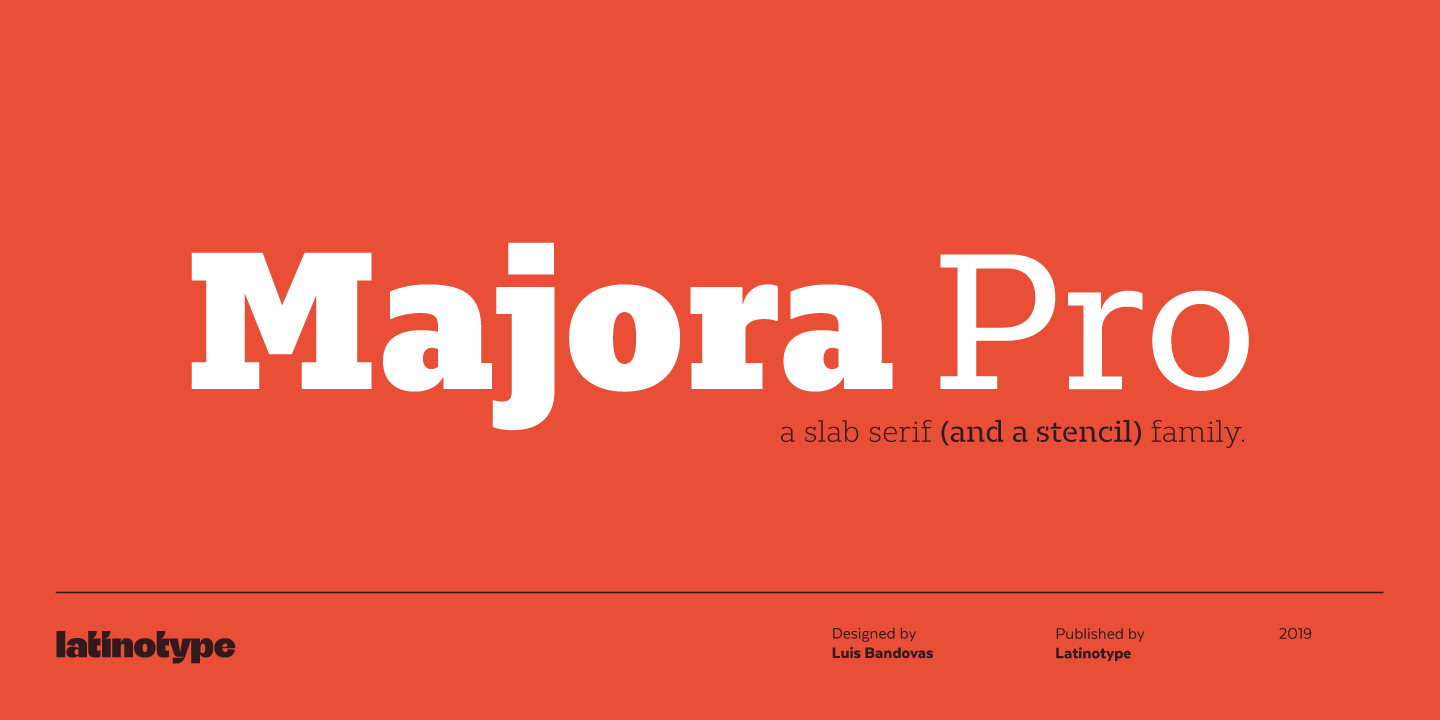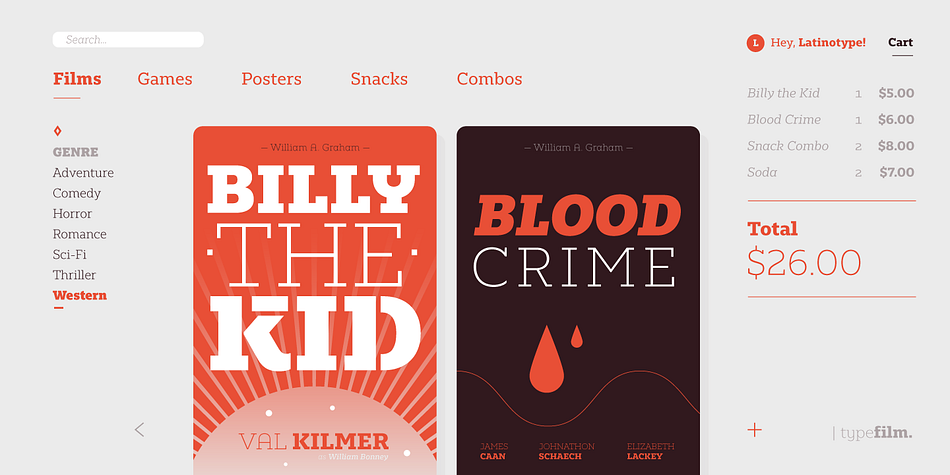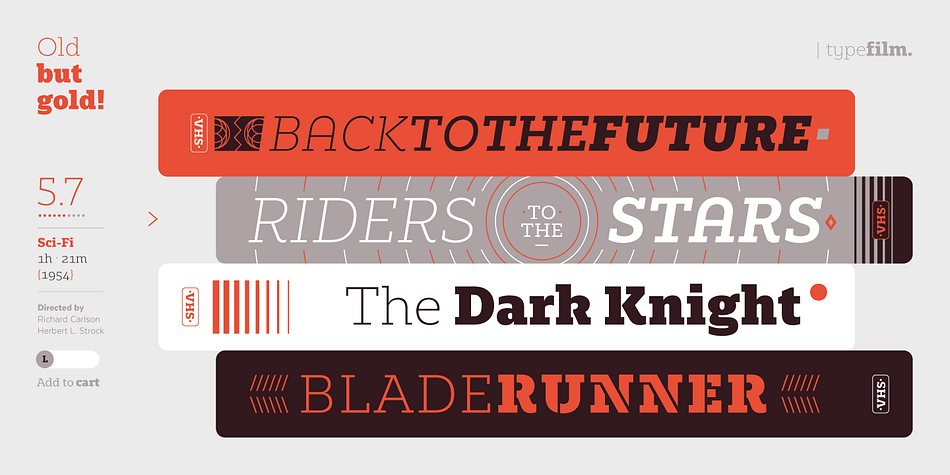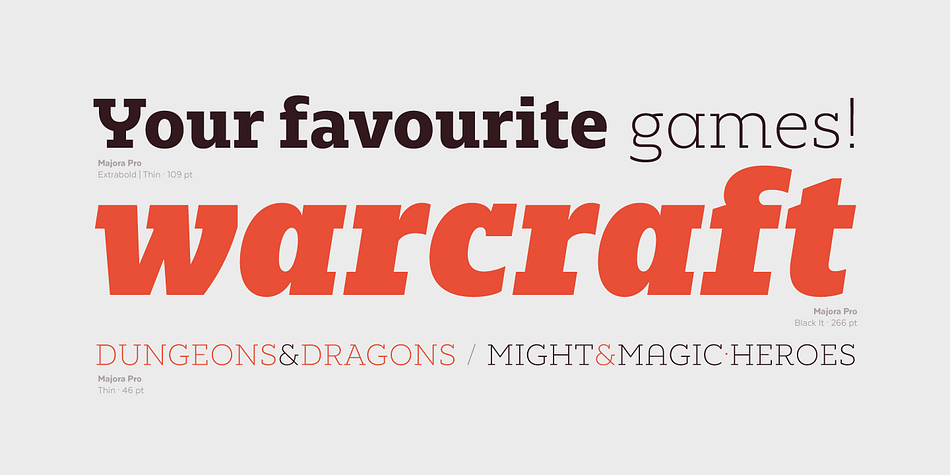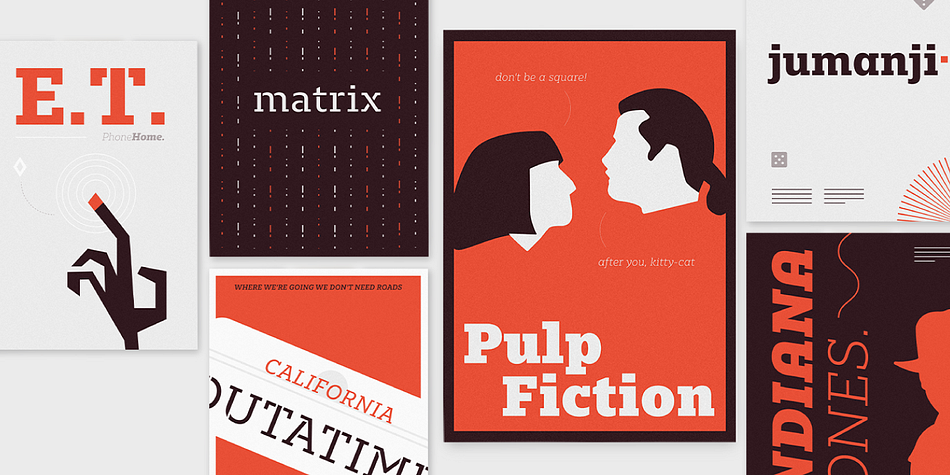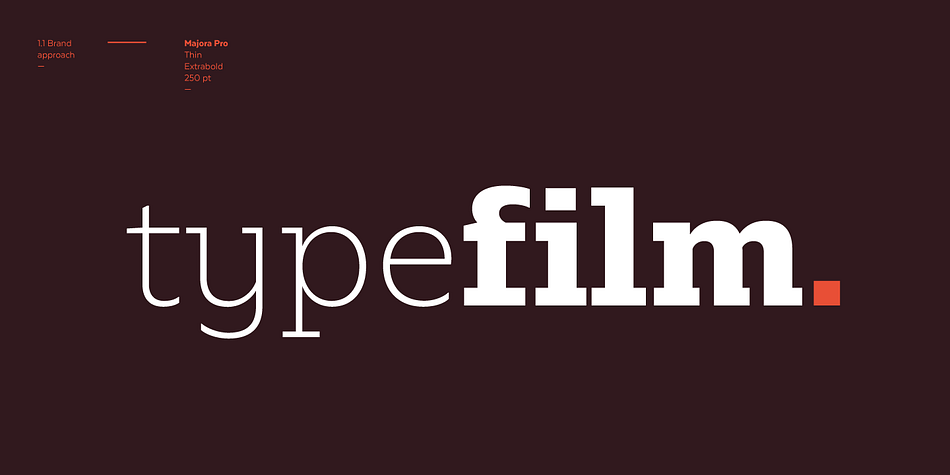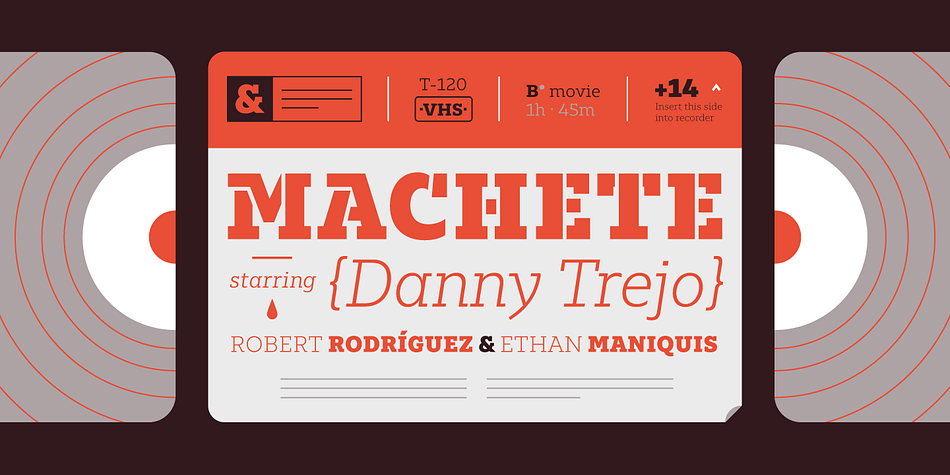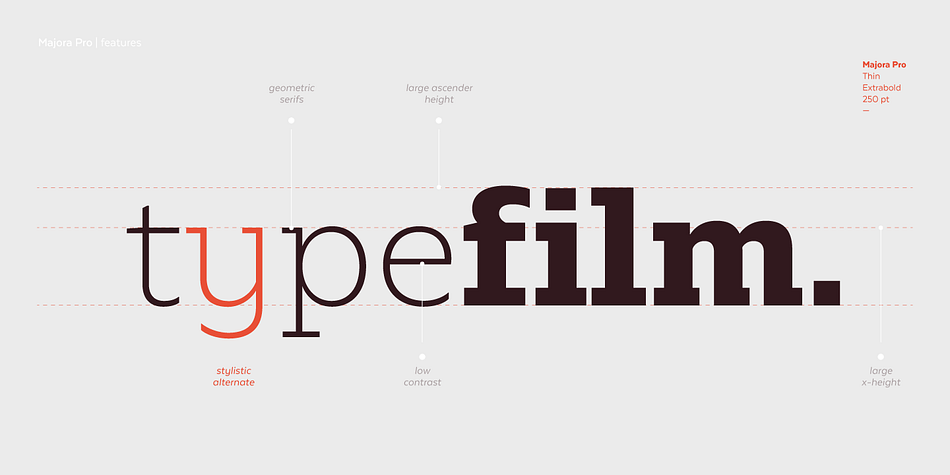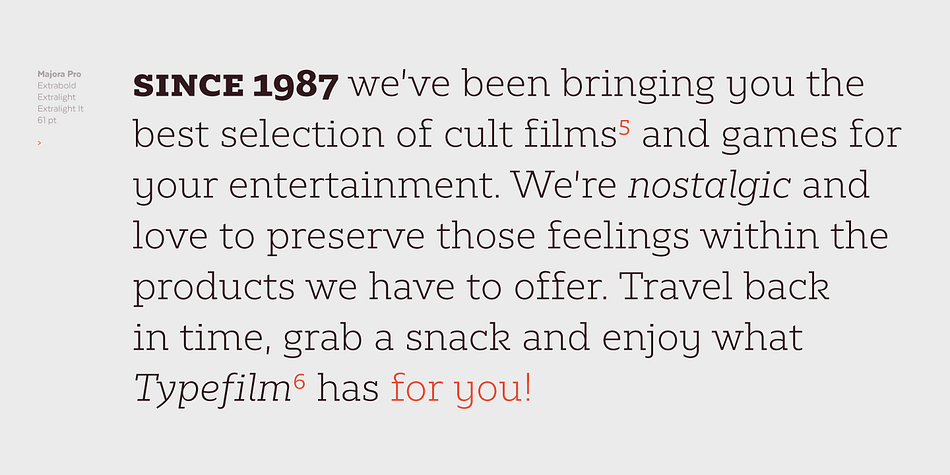
Designed by Luis Bandovas, Majora Pro is a slab serif and stencil font family. This typeface has twenty-four styles and was published by Latinotype.
Majora Pro is a slab serif typeface which derives its name from a Portuguese historical toy manufacturer. The font comes in 8 styles, ranging from a delicate Thin to a robust Black, with matching italics and an upright version of stencil fonts, resulting in a total of 24 weights.
Majora Pro is well-suited to a wide range of design projects which include packaging, editorial design, screen use, etc. Its humanistic features and moderate contrast between thick and thin strokes make it also suitable for long block of texts while having a high degree of legibility. The font includes a set of alternate glyphs which help give your compositions a different and unique look.
The Stencil version was specially designed for use in signage, packaging, titles and headings.
Majora Pro contains an extensive set of 750 characters (including small caps, different figure styles, etc.) that support over 200 Latin-based languages.